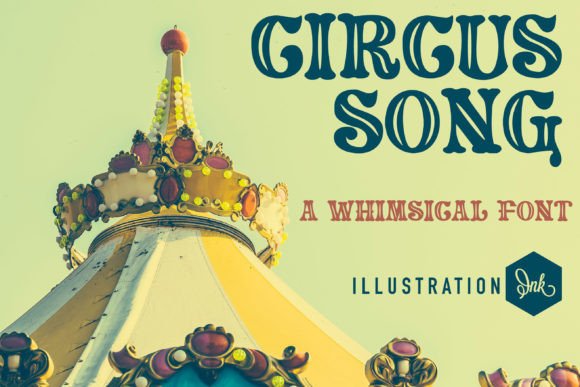
Unleash the Exuberance of the Wild West with Circus Song Font: A Typographic Masterpiece for Bold and Captivating Designs
Journey through the untamed frontier of visual expression with Circus Song Font, a display font that embodies the spirit of the Wild West. Its bold and expressive design, reminiscent of vintage Western posters, adds a touch of rustic charm and rugged elegance to any creative project.
With Circus Song Font as your trusty companion, you'll command attention and captivate audiences in the digital realm. Its intricate details and artistic flair evoke a sense of grandeur and sophistication, making it the perfect choice for headlines that demand attention, logos that leave a lasting impression, and design elements that yearn for a touch of the extraordinary.
Let your imagination run wild as you explore the endless possibilities of this typographic masterpiece. Experiment with different sizes and colors to create a visual symphony that resonates with your unique style. Whether you're designing for a website, social media campaign, or print project, Circus Song Font has the versatility and impact to make your vision come to life.
Immerse yourself in the Old West aesthetic and transport your audience to a time of adventure and freedom. Circus Song Font captures the essence of the untamed frontier, adding a layer of intrigue and excitement to your creative endeavors. Its ability to evoke emotions and create a distinct ambiance makes it an invaluable asset for designers seeking to make a lasting impression.
Don't settle for ordinary fonts that blend into the background. Embrace the boldness and exuberance of Circus Song Font and watch as your designs take center stage. It's the perfect font for those who dare to be different, who crave attention, and who believe in the power of visual impact.